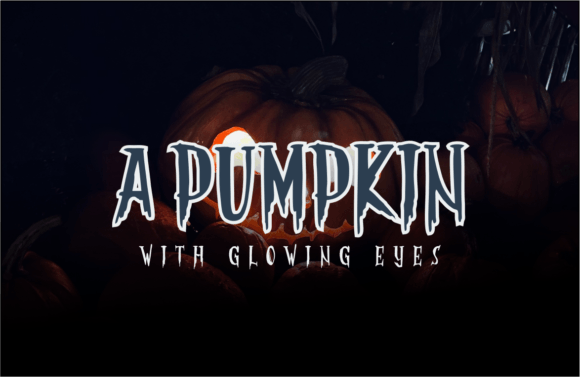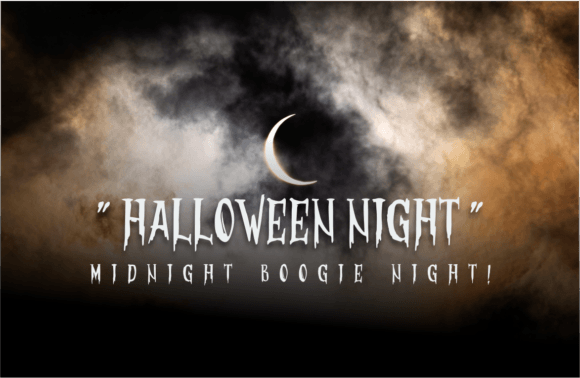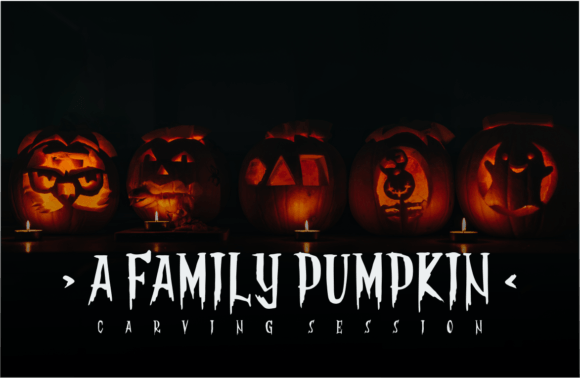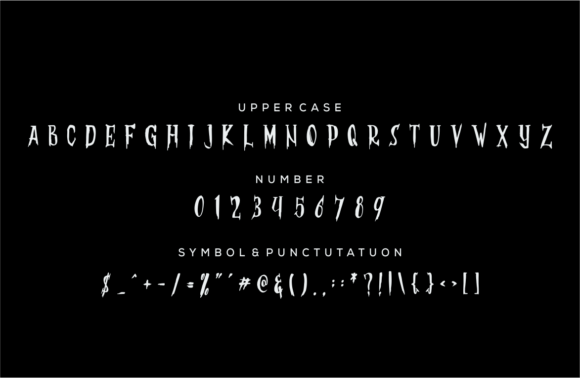
Introduction to Night Halween’s Font
As the sun sets on a crisp autumn evening, the moon casts an eerie glow over the landscape, setting the stage for a night of spooky delights. For designers, this is the perfect moment to unleash their creativity and bring the magic of Halloween to life. One way to do this is with a special font that captures the essence of the season.
Enter Night Halween’s Font, a unique and high-quality design resource that’s perfect for any creative project. With its simple yet effective characters, this font is a valuable addition to any designer’s toolkit. Whether you’re working on a Halloween-themed brochure, poster, or social media campaign, Night Halween’s Font is sure to make your designs stand out. And the best part? It’s available for free download with a transparent background, making it easy to incorporate into your designs.
Key Features of Night Halween’s Font
- High-quality, unique design for creative projects, available for free download as a design resource.
- Designed with a spooky, autumnal theme, perfect for Halloween and fall-themed creative projects.
- Comes in a single weight, making it easy to use in a variety of design contexts.
Honest Review: Night Halween’s Font
As a designer, I’ve had the chance to explore a wide range of high-quality design resources. Recently, I stumbled upon Night Halween’s Font, a unique and intriguing font that caught my attention.
- ✨ The font’s design is truly creative and has a lot of potential for use in various projects, from posters to logos.
- ✨ The font’s transparent background allows for seamless integration with any design element.
Overall, I think Night Halween’s Font is a great addition to any designer’s toolkit. While it has some limitations, its creative potential and high-quality design make it a worthwhile resource for any creative project.
Tips for Getting the Most Out of Night Halween’s Font
Use the Night Halween’s Font on a transparent background to create a unique and eye-catching design. Experiment with different font sizes and colors to add depth and visual interest to your design.
The Night Halween’s Font is perfect for creative projects, such as designing invitations, posters, and social media graphics. Its high quality and design resource make it a valuable asset for designers and non-designers alike. With a free download available, you can start using the Night Halween’s Font on your next project today.